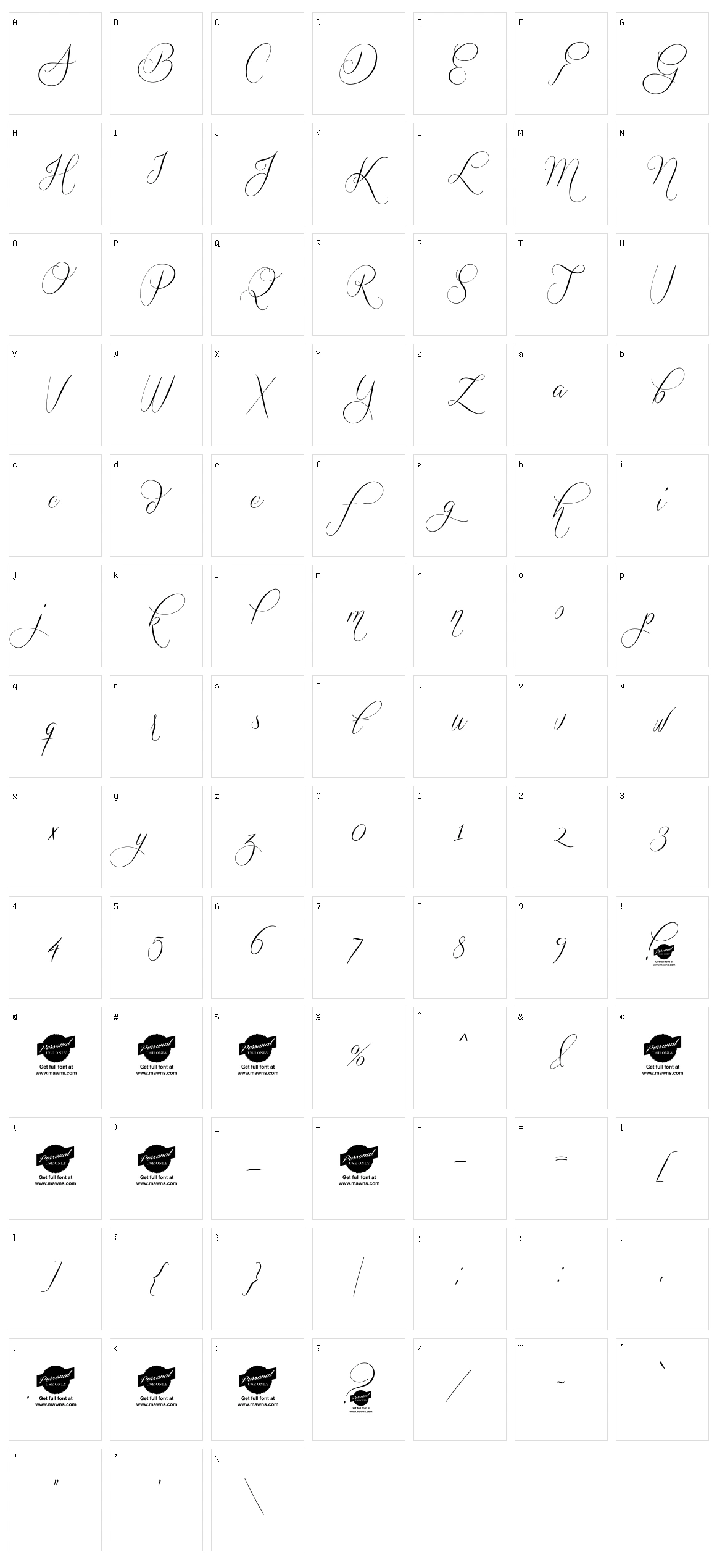
The free font Quickier is carefully designed by Mans Greback, showcasing a thoughtful balance of creativity and usability and falls under the Script font style. When you download the ZIP file, it contains only 180.97 KB of font files, making it lightweight and quick to download. Please review the license details below to understand permitted usage and distribution rights. If license information is not available, we recommend using this font for personal projects only or contacting the author directly for commercial usage permissions.